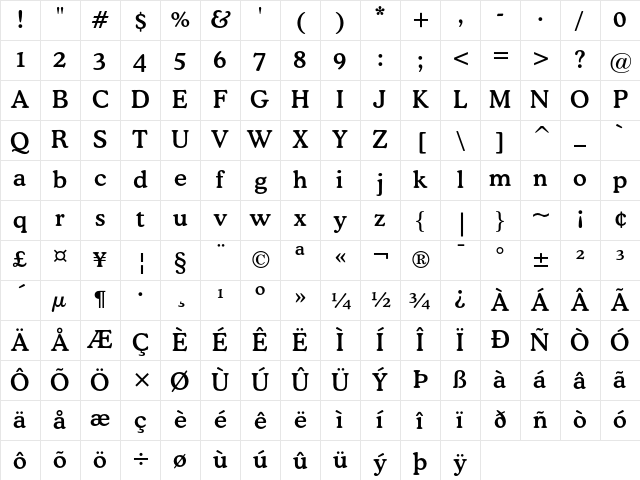
Bitstream Cooper Medium
Bitstream Cooper Family
Bitstream Cooper Medium
Complete Bitstream Cooper Medium glyph index. Displaying only characters natively supported by Bitstream Cooper Medium font.
Design Context for Bitstream Cooper
Bitstream Cooper is a composed and adaptable typeface that performs quietly and consistently across a wide range of design contexts.